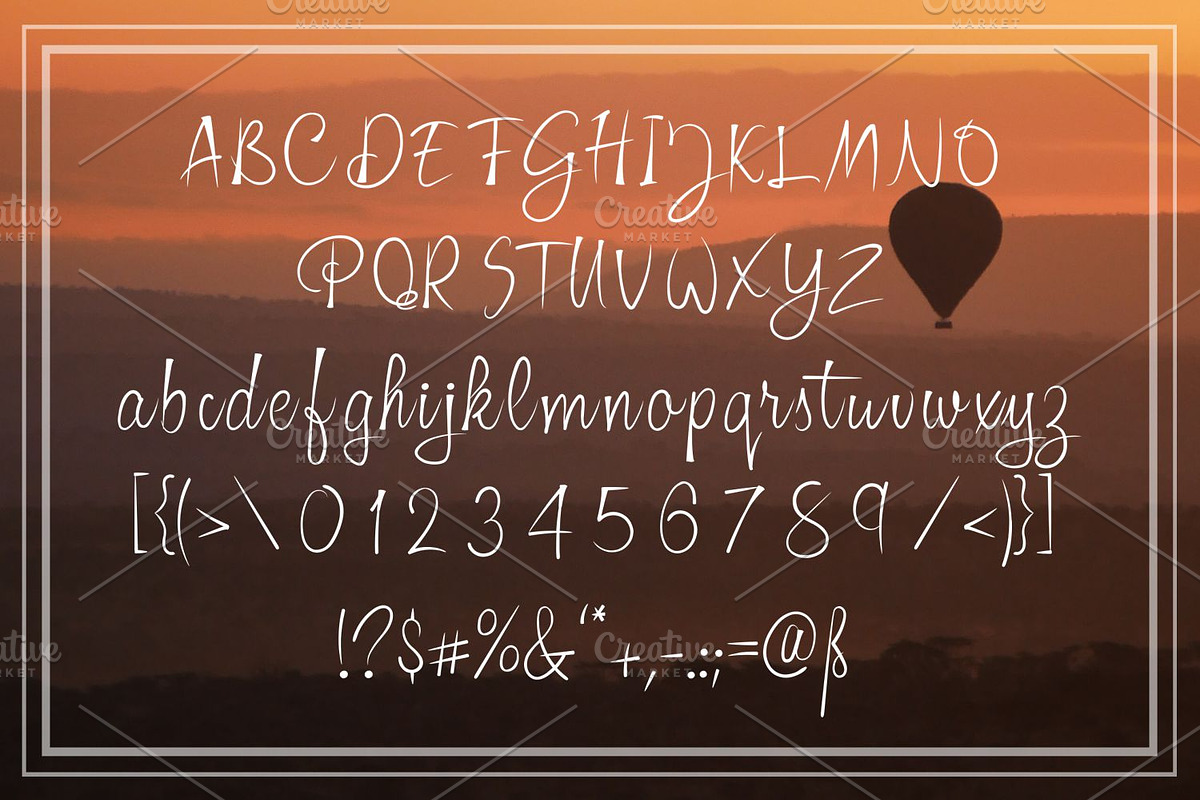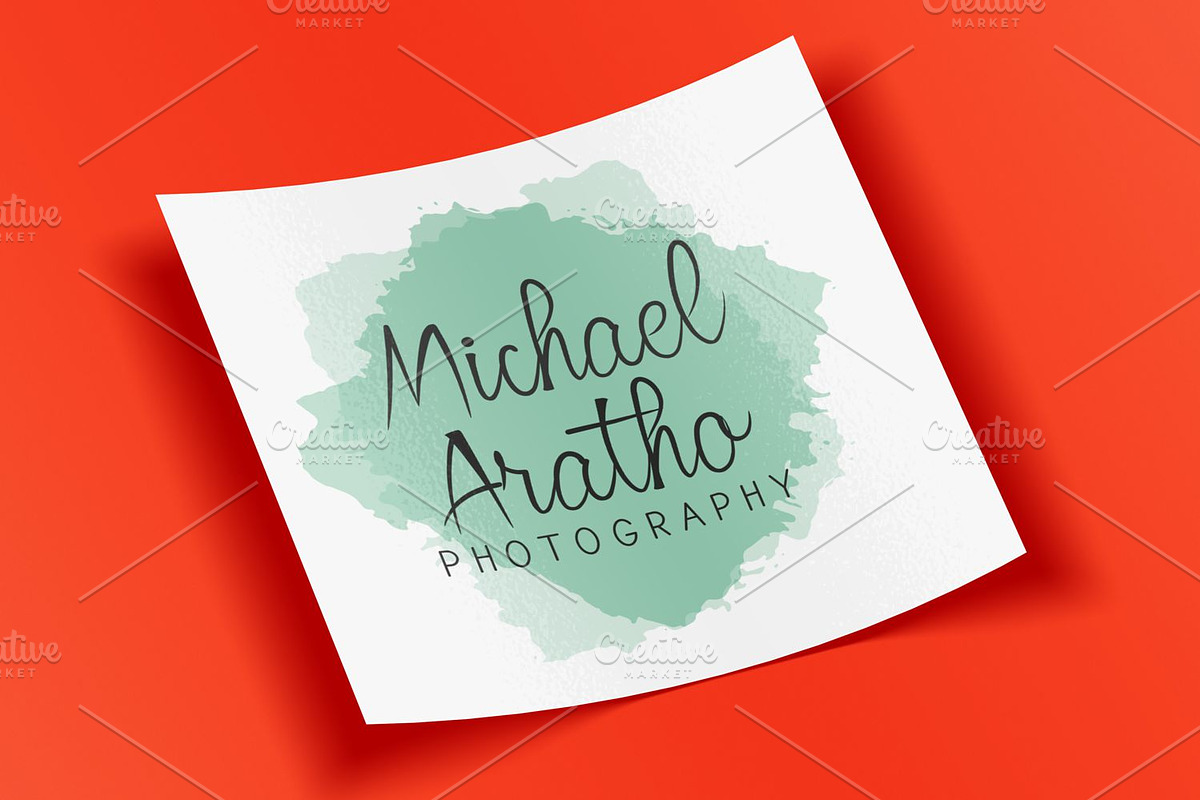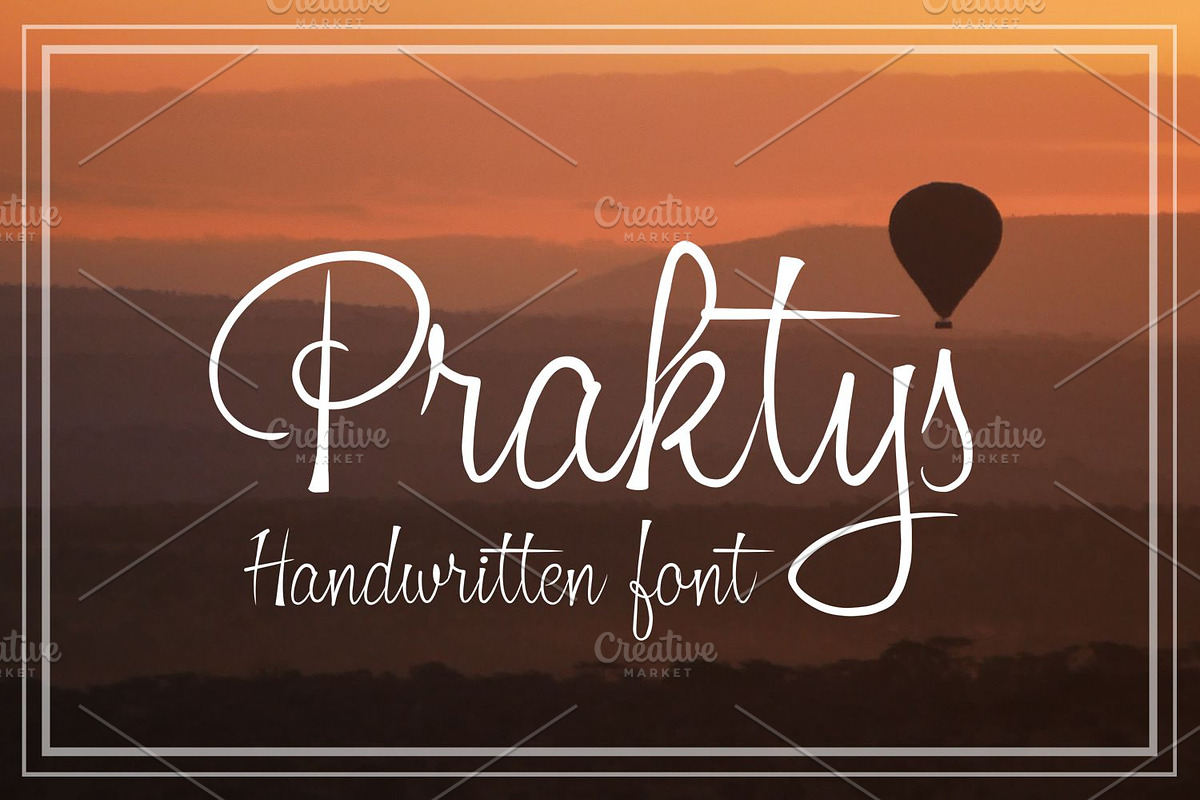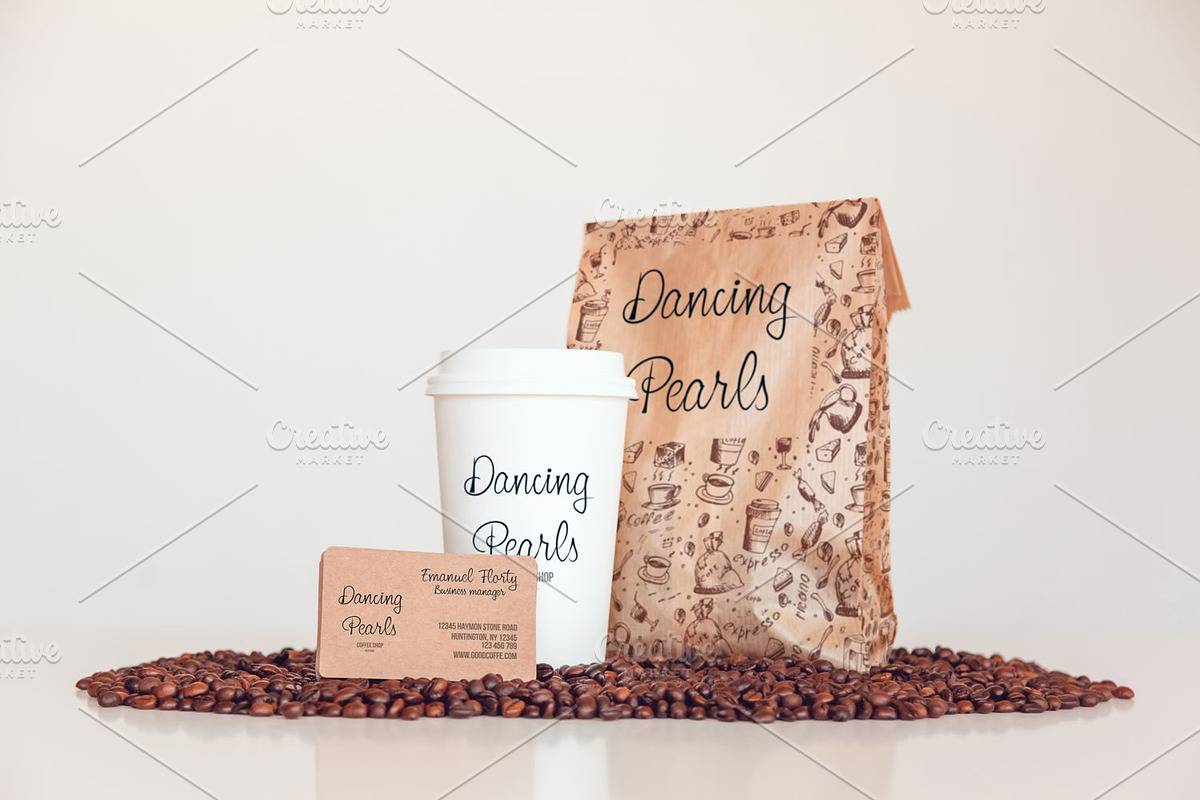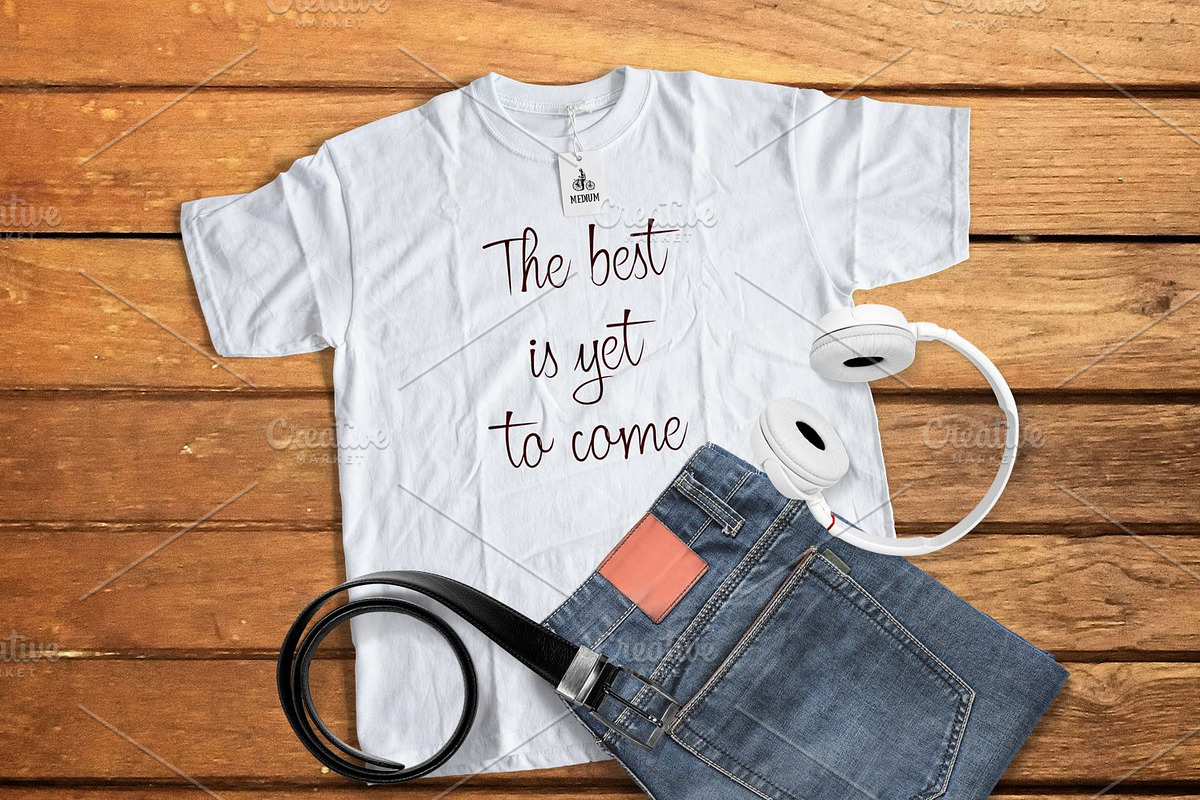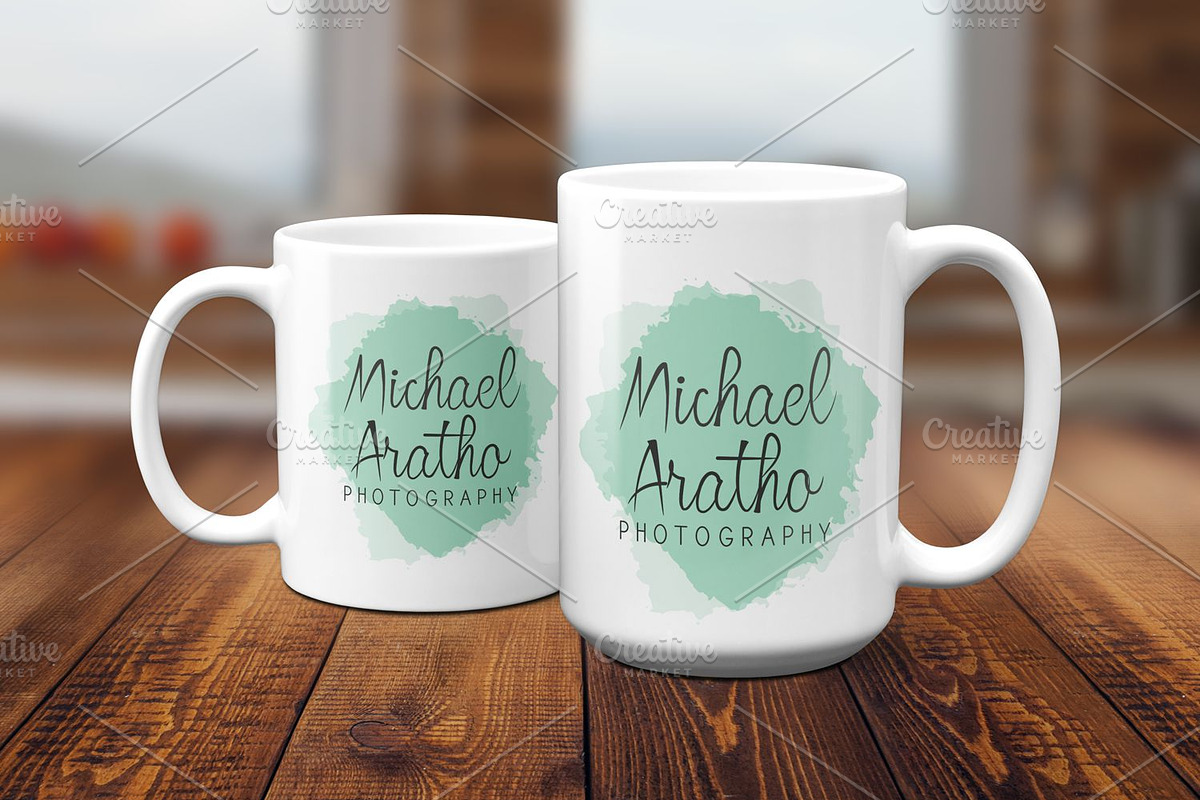
Praktys
Praktys Font with natural handwriting style perfect for many different projects such as logos, quotes, branding, invitations, wedding designs, advertisements, product packaging, posters, labels etc.
Praktys by Digital Typeface Studio fits naturally into Branding, posters, packaging, typography.